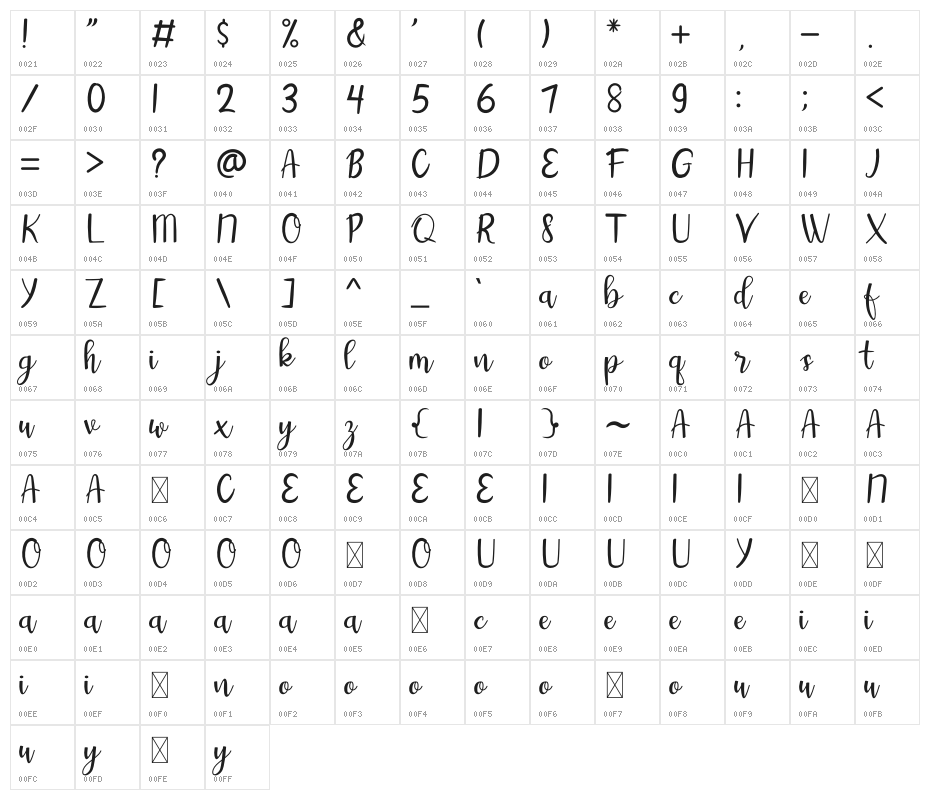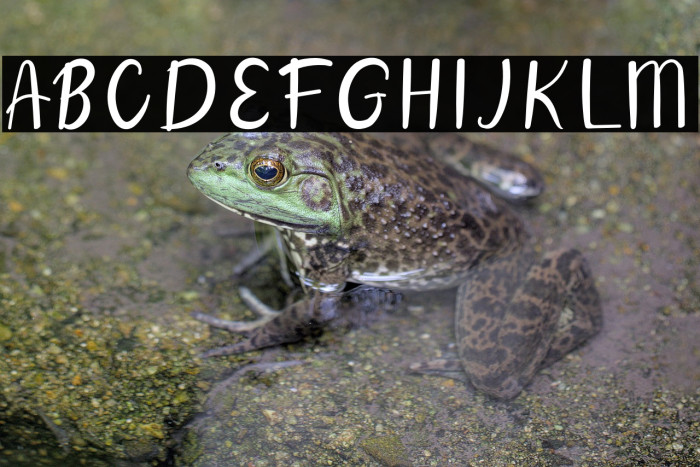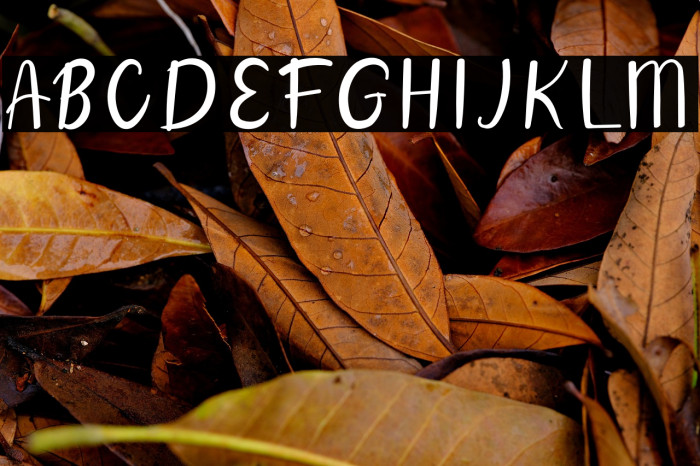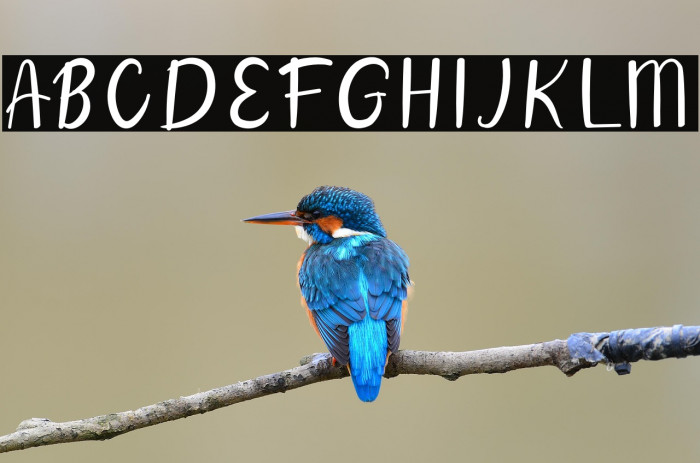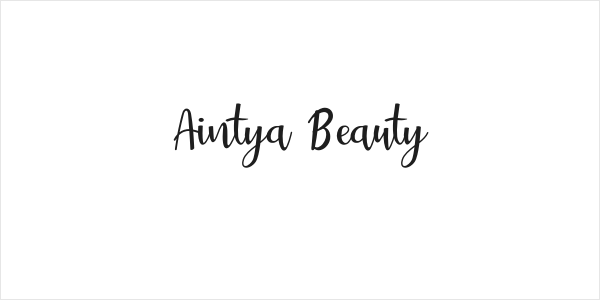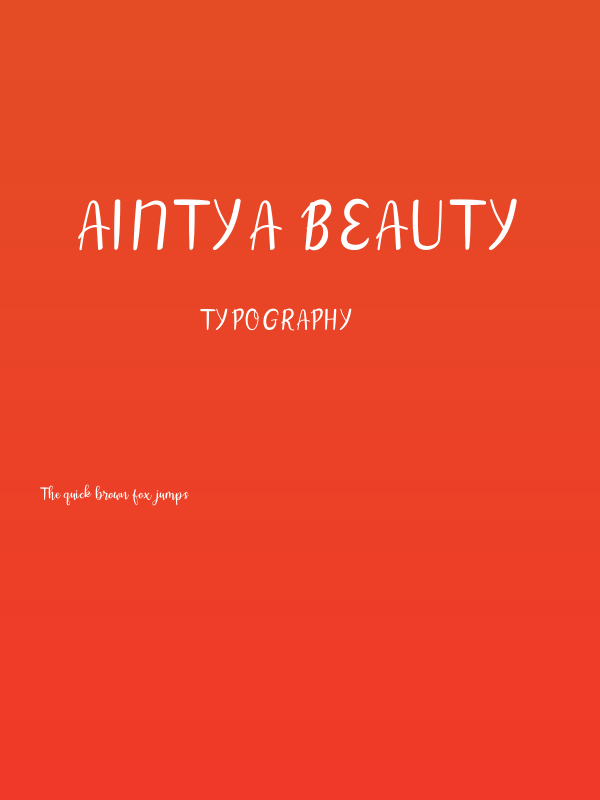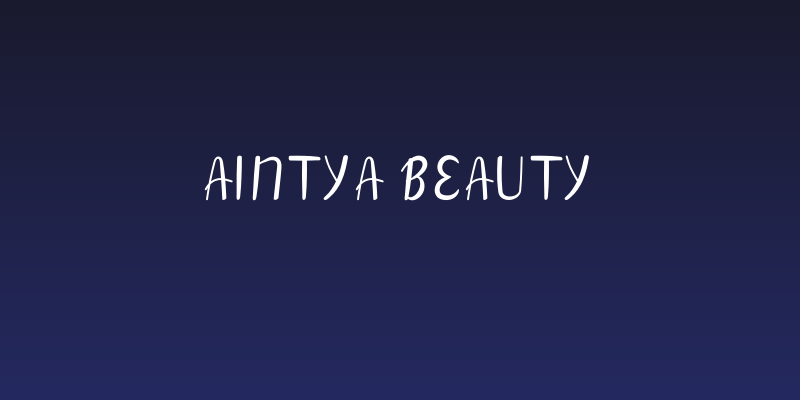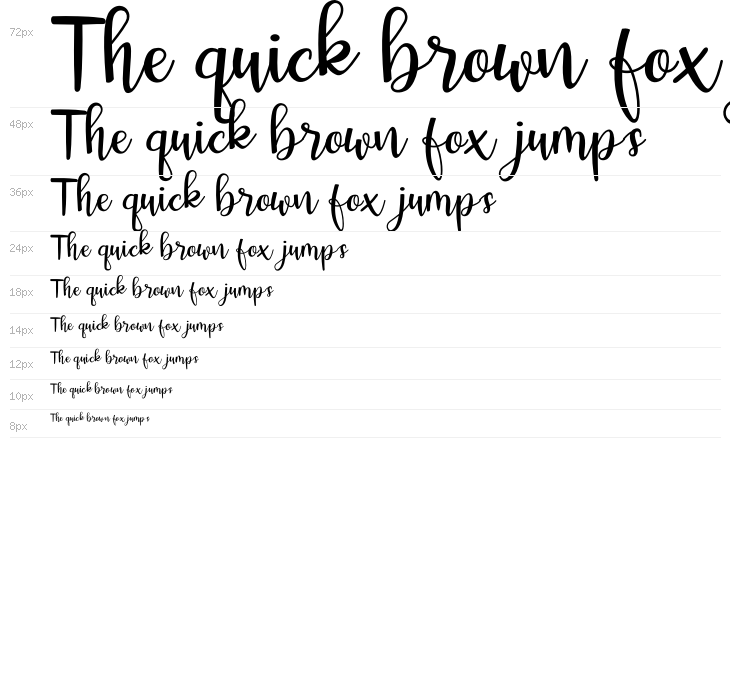
Aintya Beauty Font
Aintya Beauty Description
A playful, handwritten script font with a casual and friendly appearance, featuring slightly irregular strokes and a mix of connected and unconnected letterforms. The characters have a natural, flowing rhythm with moderate contrast in stroke thickness.
| Overall Style | Decorative, Playful, Modern |
| Use Case | Logos, Headlines, Invitations, Social media posts |
| Proposed Projects | Greeting cards, invitations, social media graphics, branding for creative businesses, posters. |